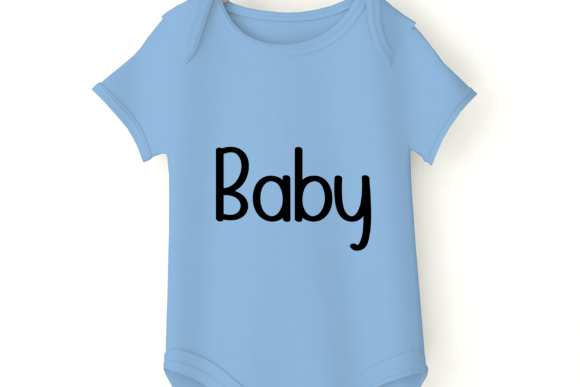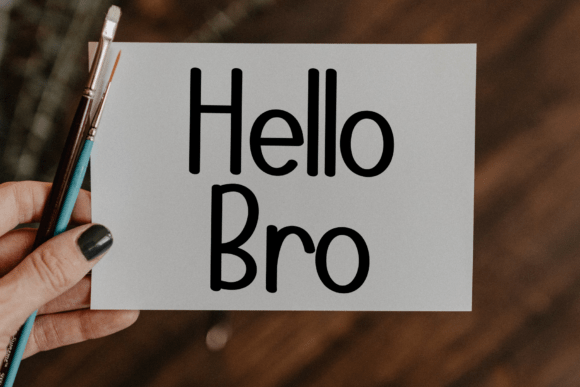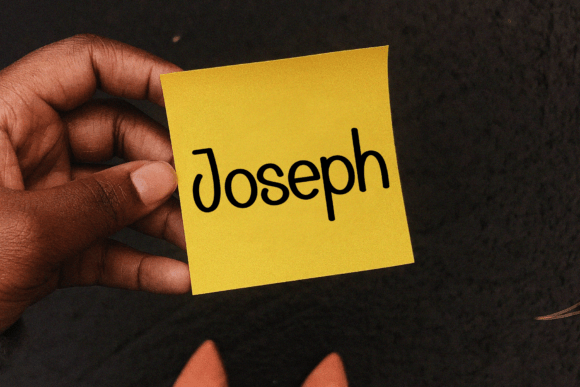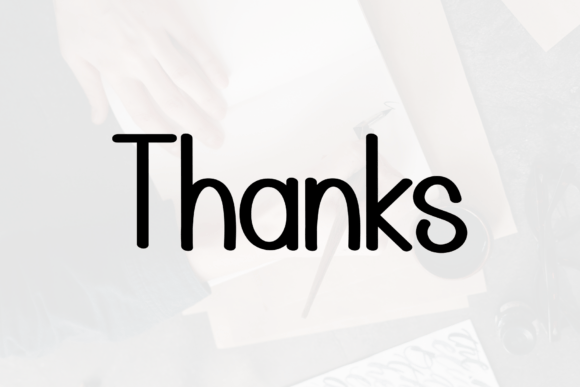
Introducing Angelina Font: The Perfect Blend of Luxury and Casual Elegance
Are you a designer or crafter looking for a font that exudes a sense of luxury and elegance, yet still maintains a casual and relaxed vibe? Look no further than Angelina Font, a beautiful handwritten font that is sure to elevate your designs to the next level. In this article, we’ll dive into the unique features of Angelina Font, its uses, and why it’s a must-have for any creative looking to add a touch of sophistication to their work.
What is Angelina Font?
Angelina Font is a stunning handwritten font that is reminiscent of marker-drawn lettering. Its relaxed and sporty feel makes it perfect for a wide range of design applications, from branding and logos to wedding supplies, greeting cards, and marketing promotions. With its elegant yet casual demeanor, Angelina Font is sure to add a touch of luxury to any design.
Unique Features of Angelina Font
So, what sets Angelina Font apart from other fonts? Here are a few of its unique features:
- Handwritten with a marker feel: Angelina Font has a distinctive handwritten feel that gives it a personal and organic touch. The marker-drawn lettering style adds a sense of warmth and approachability to any design.
- Relaxed and sporty vibe: Unlike other elegant fonts, Angelina Font has a relaxed and sporty feel that makes it perfect for designs that require a more casual approach.
- Luxurious and elegant: Despite its casual vibe, Angelina Font still exudes a sense of luxury and elegance, making it perfect for high-end designs.
Uses of Angelina Font
Angelina Font is incredibly versatile and can be used in a wide range of design applications, including:
- Branding and logos: Create a lasting impression with a custom logo that features Angelina Font. Its elegant yet casual feel makes it perfect for businesses that want to convey a sense of sophistication without appearing too formal.
- Wedding supplies: Add a touch of luxury to your wedding designs with Angelina Font. Its elegant feel makes it perfect for wedding invitations, programs, and other stationery.
- Greeting cards: Create beautiful and elegant greeting cards for any occasion with Angelina Font.
- Fashion and lookbooks: Angelina Font is perfect for fashion designs that require a touch of elegance and sophistication. Use it to create stunning lookbooks, fashion magazines, and more.
- Marketing promotions: Elevate your marketing promotions with Angelina Font. Its luxurious feel makes it perfect for creating high-end promotional materials that will leave a lasting impression on your customers.
Why Choose Angelina Font?
So, why should you choose Angelina Font for your next design project? Here are a few reasons:
- Unique and distinctive: Angelina Font is a unique and distinctive font that will set your designs apart from the rest.
- Elegant yet casual: Its elegant yet casual feel makes it perfect for a wide range of design applications.
- High-quality design: Angelina Font is designed with high-quality and attention to detail, ensuring that your designs look professional and polished.
In conclusion, Angelina Font is a beautiful and versatile font that is perfect for designers and crafters looking to add a touch of luxury and elegance to their work. Its unique features, including its handwritten feel and relaxed yet sporty vibe, make it perfect for a wide range of design applications. Whether you’re creating branding materials, wedding supplies, or marketing promotions, Angelina Font is sure to elevate your designs to the next level.